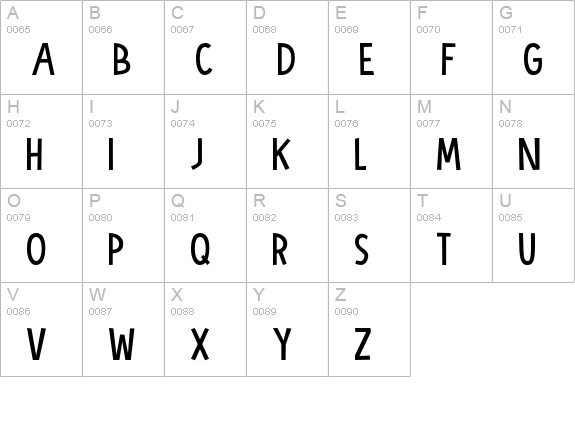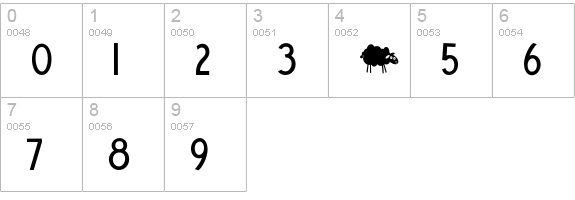
DK Blue Sheep Font Details
DK Blue Sheep is a free for personal use font in the Script > Handwritten category, designed by FontsMarket2023. It has been downloaded 29 times and is available for Windows, Mac and Linux.
The DK Blue Sheep font is a charming and playful typeface that exudes a sense of whimsy and creativity. With its unique design and quirky details, this font is sure to catch the eye and add a touch of fun to any project. The DK Blue Sheep font is perfect for creating eye-catching headlines, posters, invitations, and more.